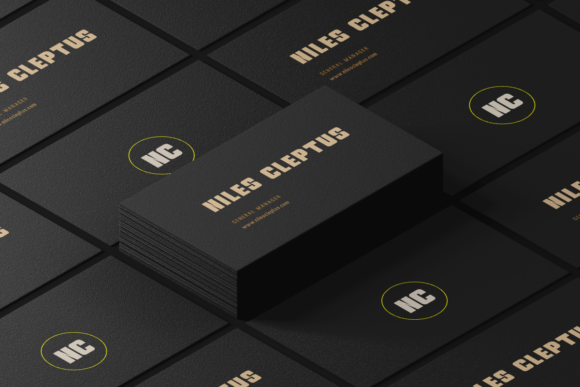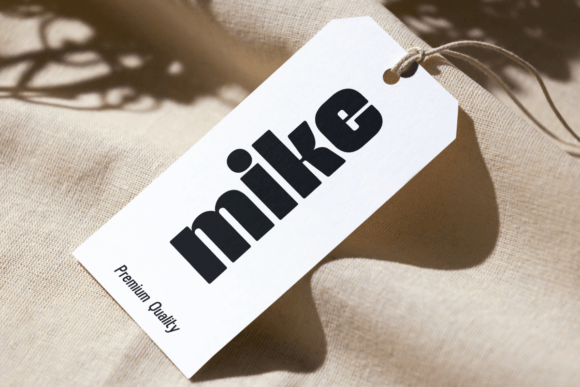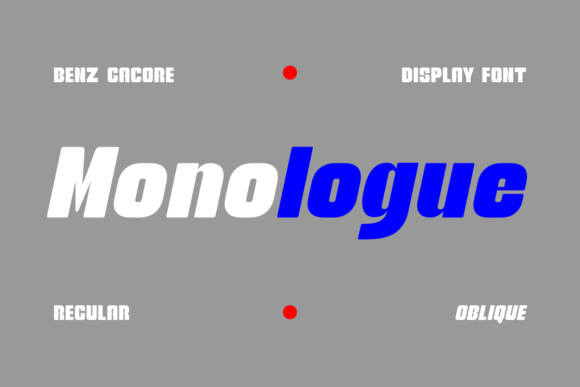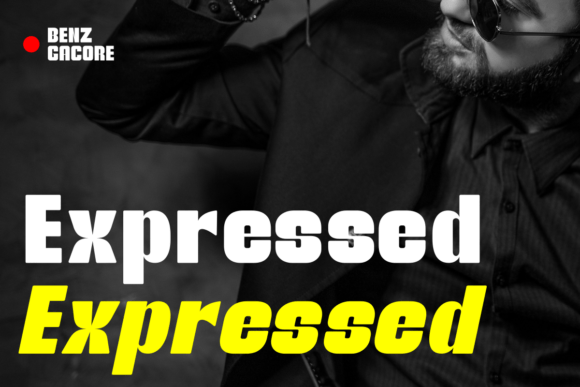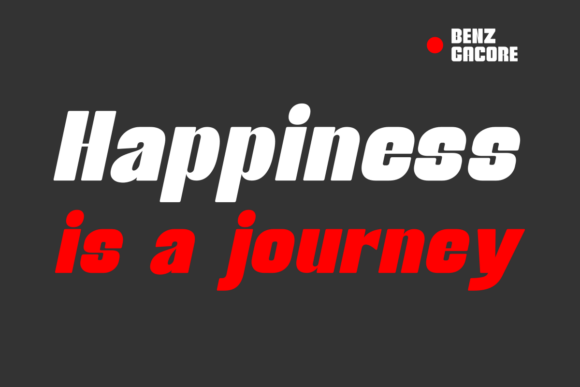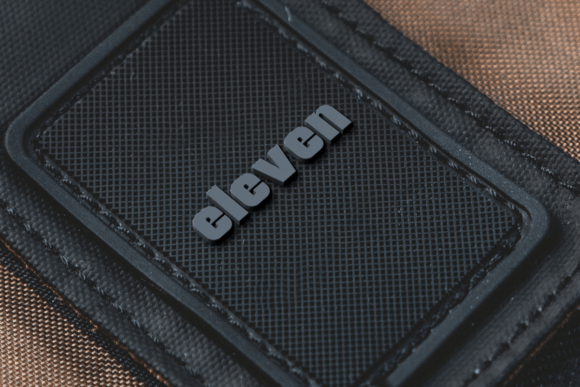
Benz Gacore Font: Elevate Your Design with Modern Elegance
Immerse yourself in the robust elegance of Benz Gacore, a sans-serif display font that embodies daring uniqueness and modern flair. This stunning font is perfectly crafted to make a lasting impact on your design projects, whether you’re a designer, craftsperson, or simply someone who appreciates beautiful typography.
The Essence of Benz Gacore
Benz Gacore is more than just a font – it’s an experience. Its proportional letterforms exude contemporary professionalism, making every word effortlessly readable and aesthetically pleasing. The font’s clean, geometric shapes and surgical precision create a sense of simplicity and sophistication, perfect for titles, logos, and headlines.
Unforgettable Impact
What sets Benz Gacore apart is its ability to command attention and leave a lasting impression. Its bold, yet uncluttered style makes it perfect for designers seeking to create something truly memorable. Whether you’re working on a branding project, a website, or a marketing campaign, Benz Gacore is the ideal choice to make your message stand out.
Two Exclusive Styles: Regular and Oblique
Benz Gacore offers two exclusive styles to cater to your design needs: the Regular and the Oblique. The Regular style delivers bold sophistication through its crisp, uncluttered design, while the Oblique style introduces vibrancy and momentum through a subtly angled approach. These two variants ensure that Benz Gacore provides the flexibility and dynamism necessary to bring your vision to life.
Design Possibilities
With Benz Gacore, the design possibilities are endless. Use it to:
- Create stunning titles and headlines that grab attention
- Design memorable logos and branding elements
- Elevate your website’s typography with a modern, professional look
- Develop marketing materials that stand out from the crowd
Why Choose Benz Gacore?
Benz Gacore is the perfect choice for designers and craftspersons seeking a font that embodies modern elegance and sophistication. Here are just a few reasons why:
- Unique and memorable: Benz Gacore’s bold, yet clean design makes it truly unforgettable
- Flexible and dynamic: The font’s two exclusive styles (Regular and Oblique) provide the flexibility to adapt to any design project
- Easy to read: Benz Gacore’s proportional letterforms ensure effortless readability
- Versatile: Suitable for a wide range of design projects, from titles and logos to headlines and marketing materials
Benz Gacore is a game-changing font that will elevate your design projects to new heights. Its robust elegance, modern flair, and flexibility make it a must-have for designers and craftspersons seeking to create something truly unforgettable. With its two exclusive styles and endless design possibilities, Benz Gacore is the perfect choice for anyone looking to make a lasting impact.
Get Ready to Experience Benz Gacore
Discover the power of Benz Gacore and experience the difference it can make in your design projects. With its unbeatable combination of modern elegance, flexibility, and readability, this font is sure to become a staple in your design arsenal.